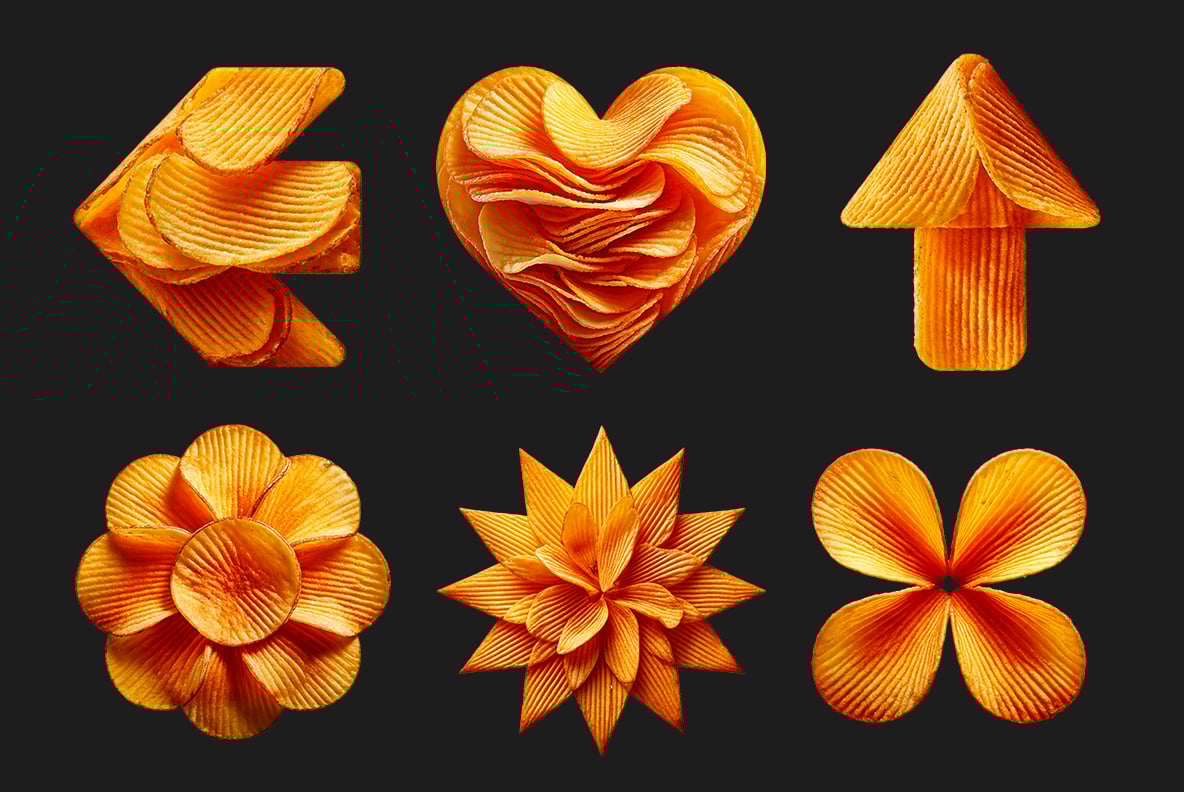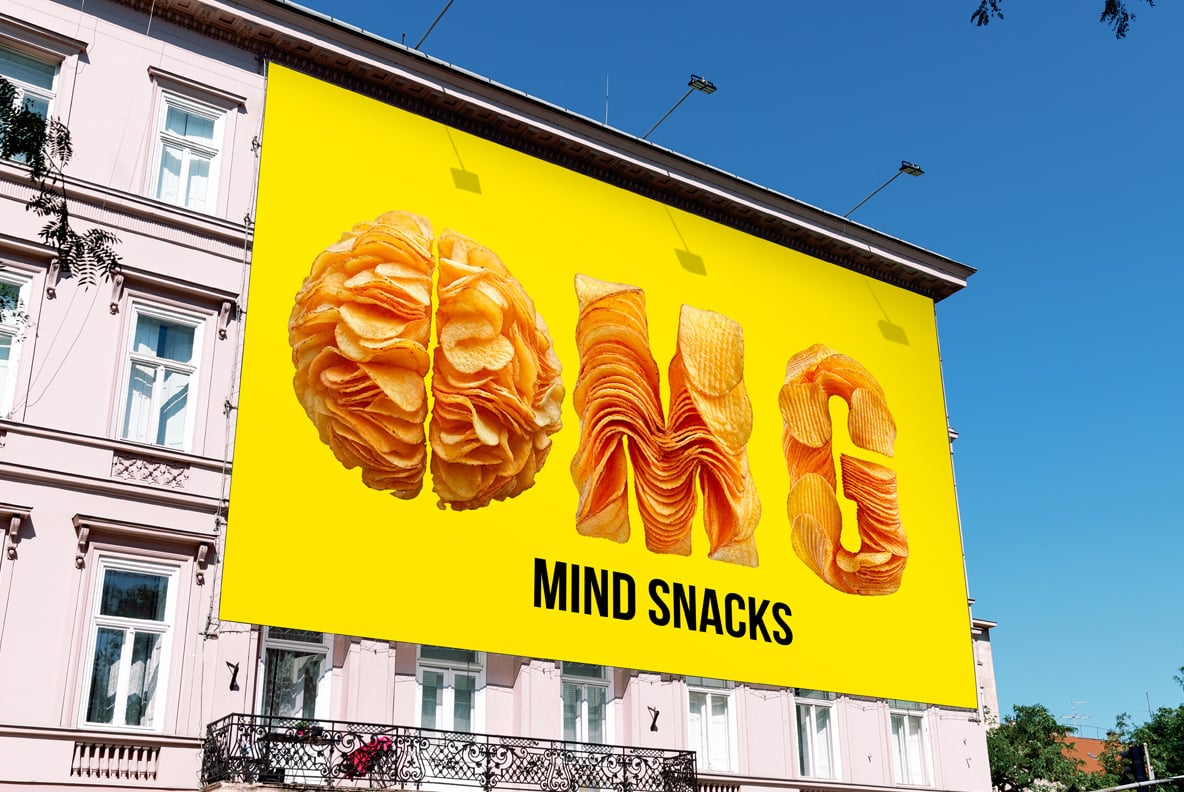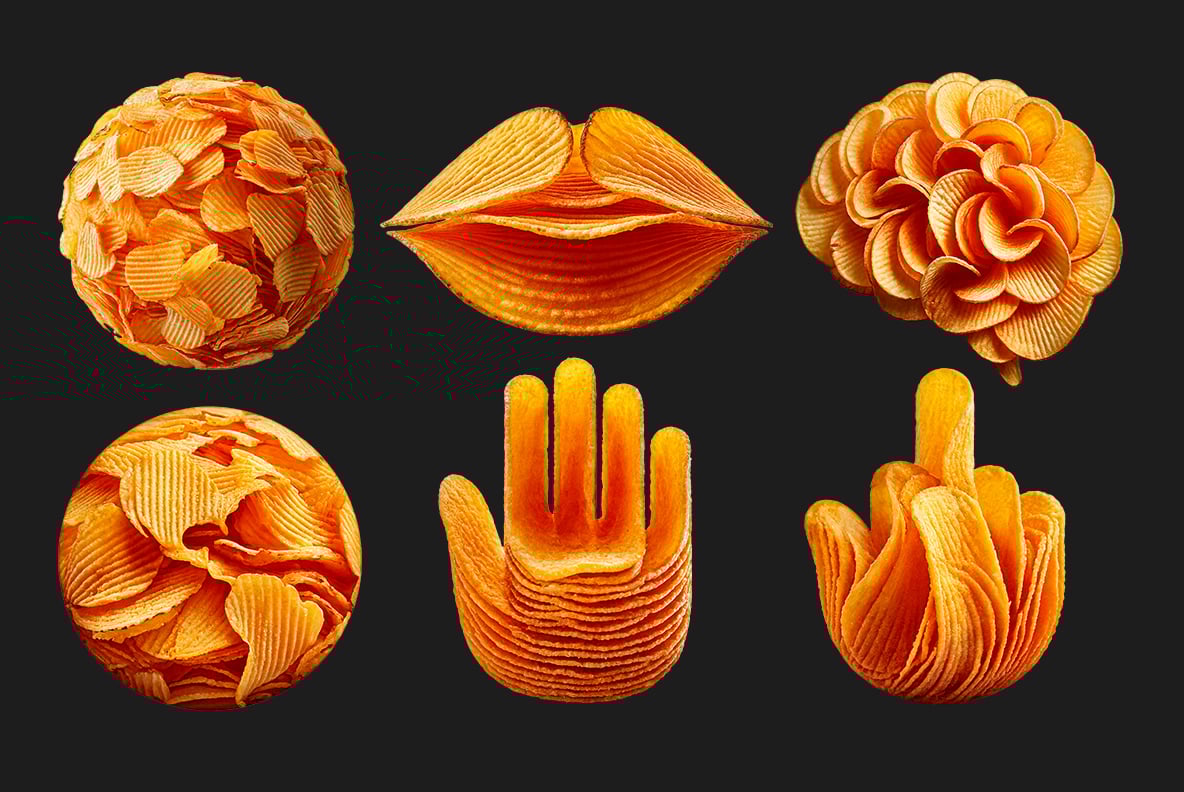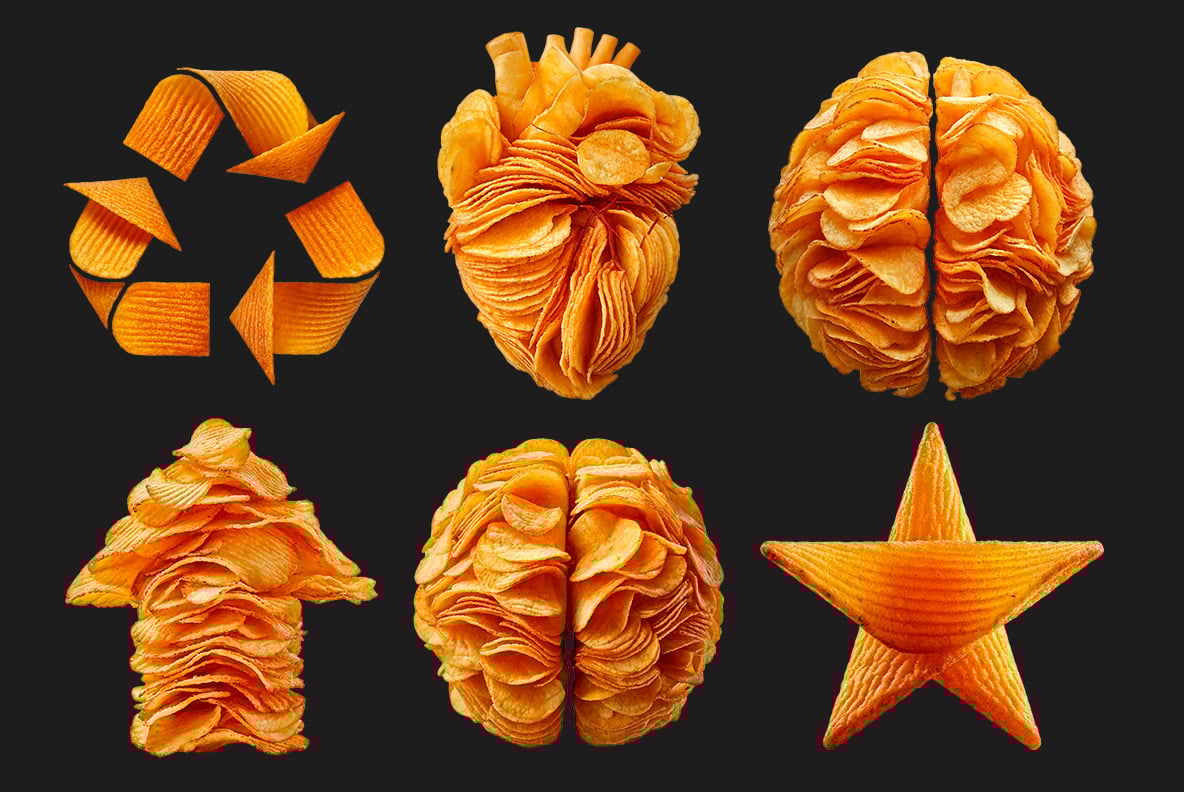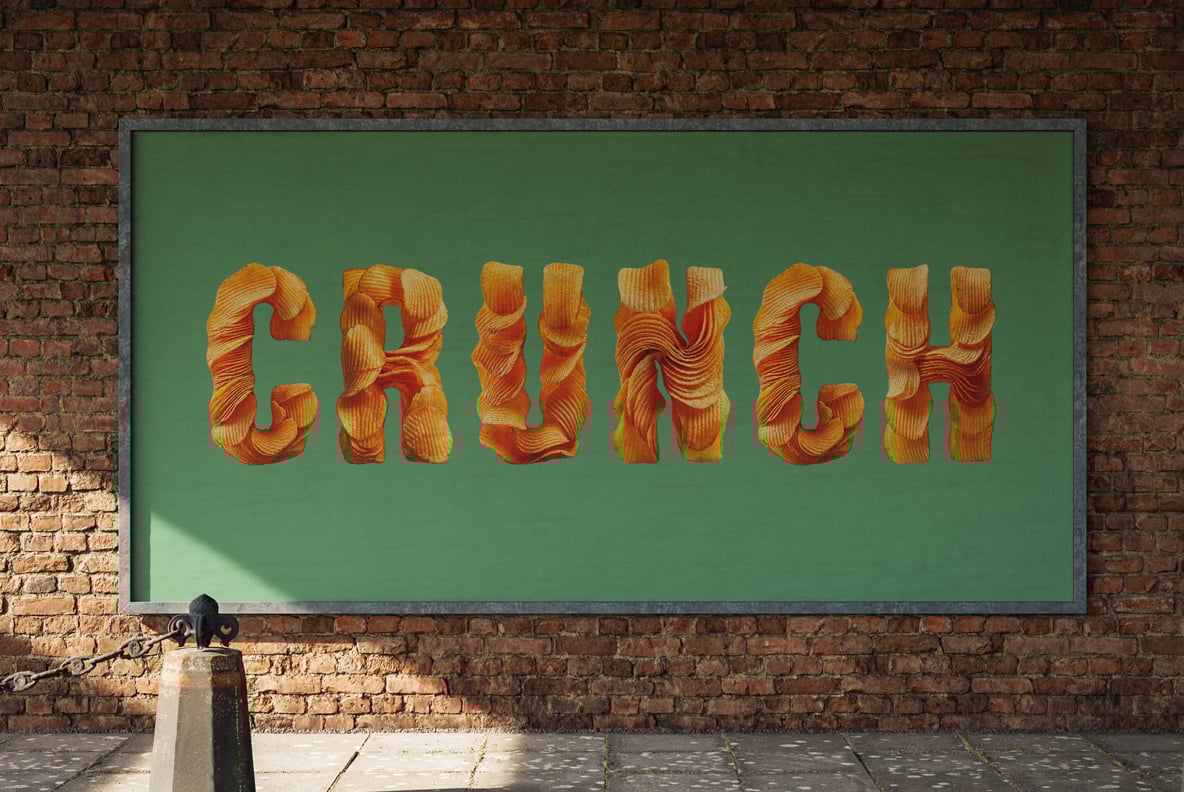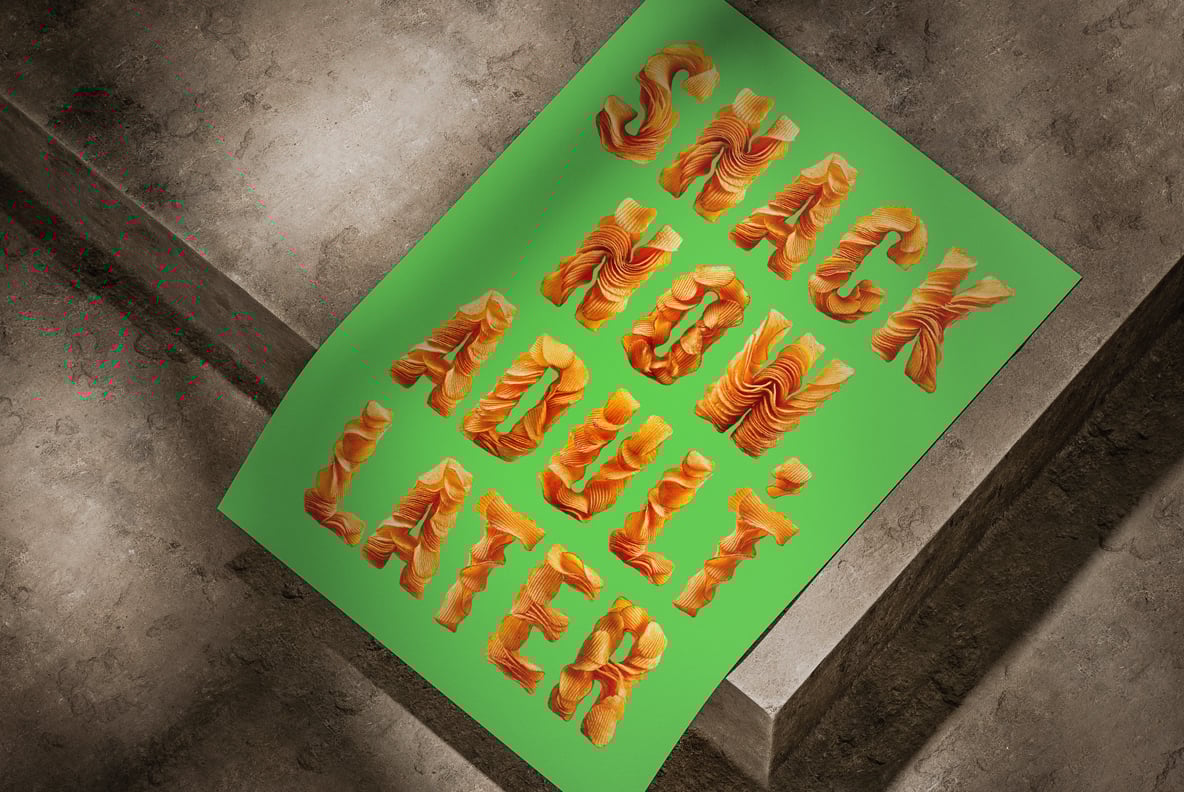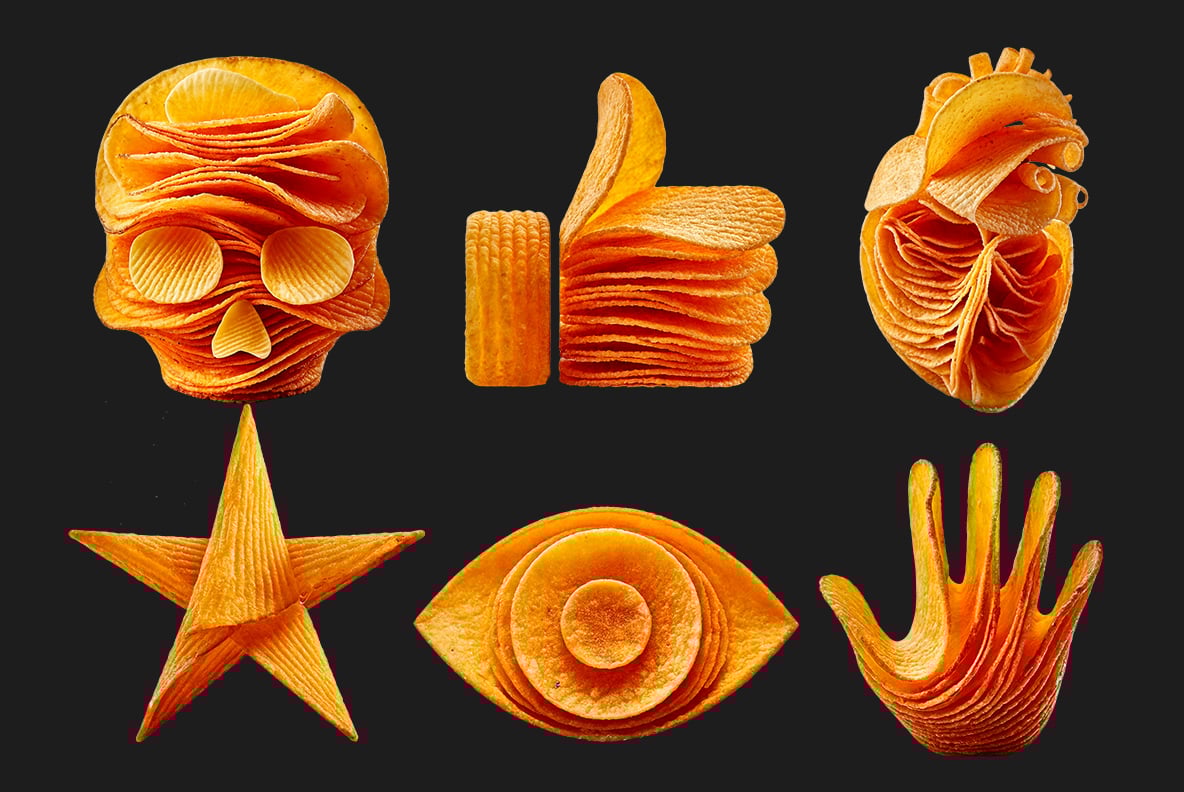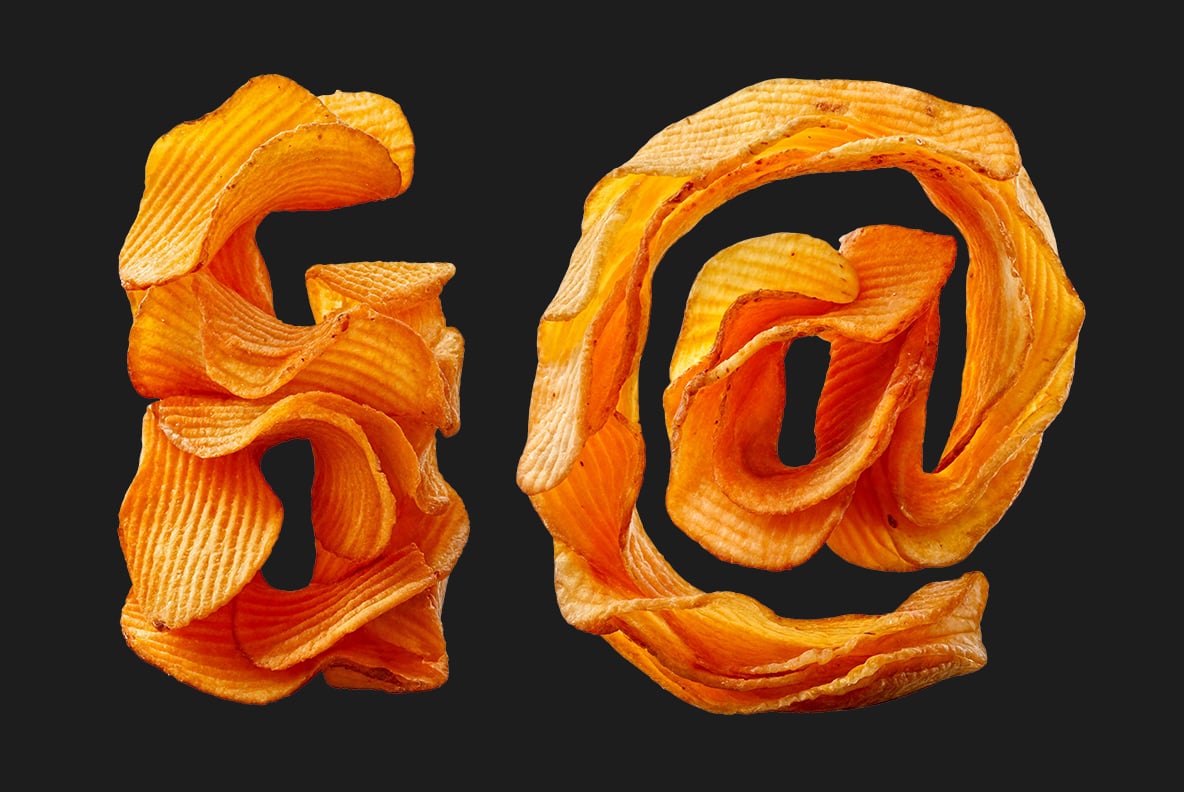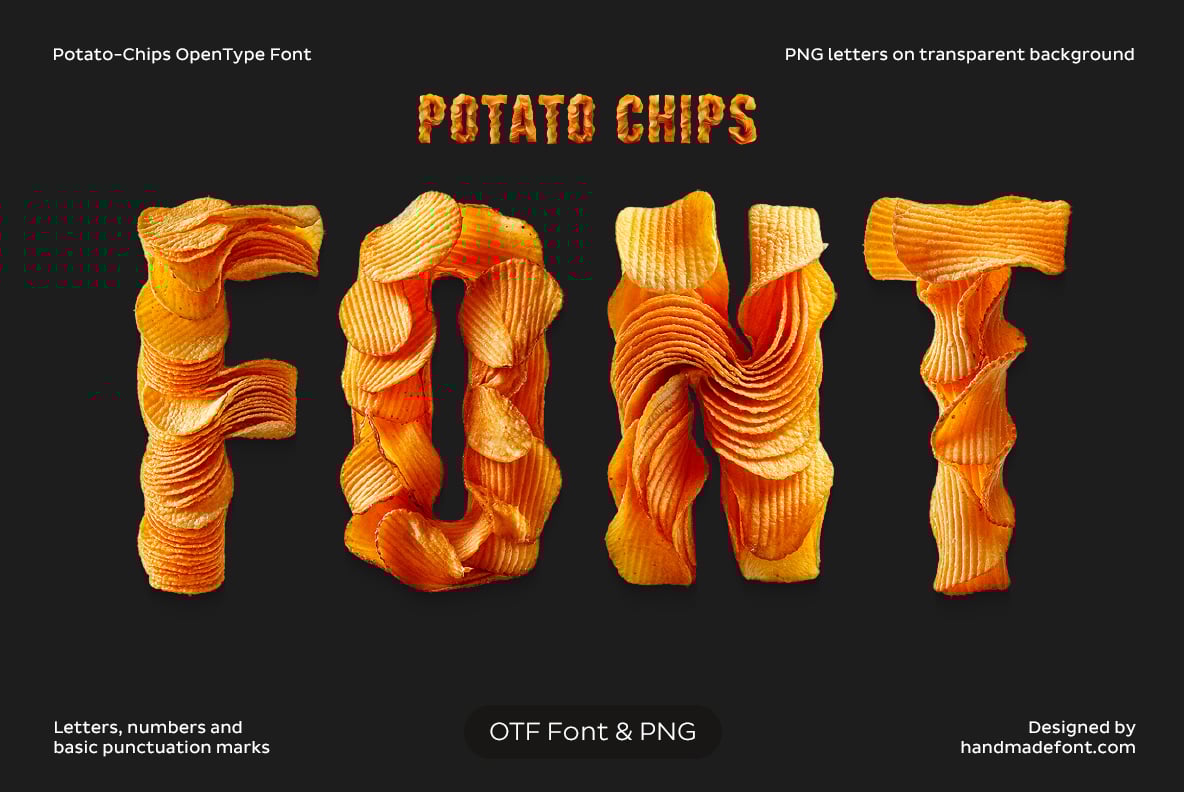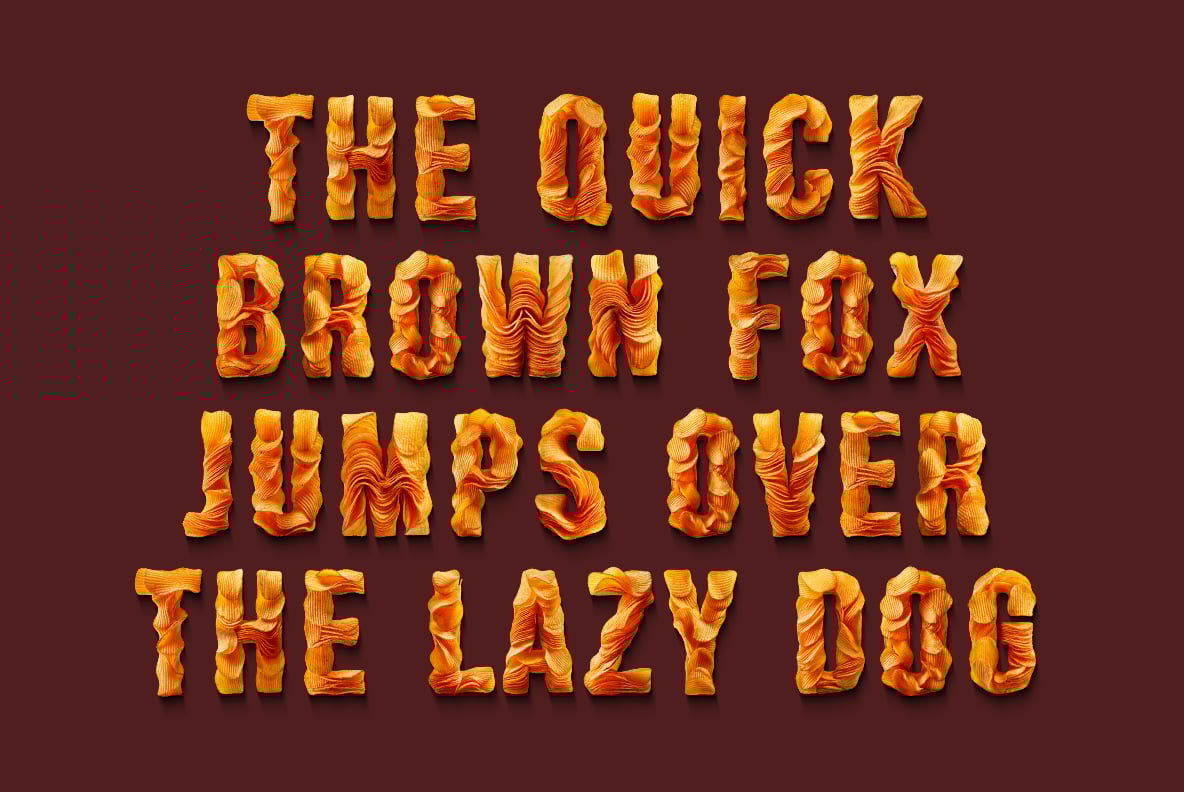
Potato Chips Font
The Potato Chips Font is a deliciously fun typeface crafted entirely from crispy, golden potato chips. Each letter looks like it’s been carefully arranged in a bowl, ready to be devoured. Perfect for designs that need a playful, mouthwatering touch, this font captures the savory flavor and irresistible crunch of everyone’s favorite snack. Whether you’re promoting parties, picnics, movie nights, or food-related events, the Potato Chips Font adds a warm, inviting vibe that’s both casual and appetizing. With its unique, edible-inspired design, it’s a tasty visual treat that turns any text into a crunchy, golden celebration of snacking joy.
Others : ! ? - . ' $ € % & # @